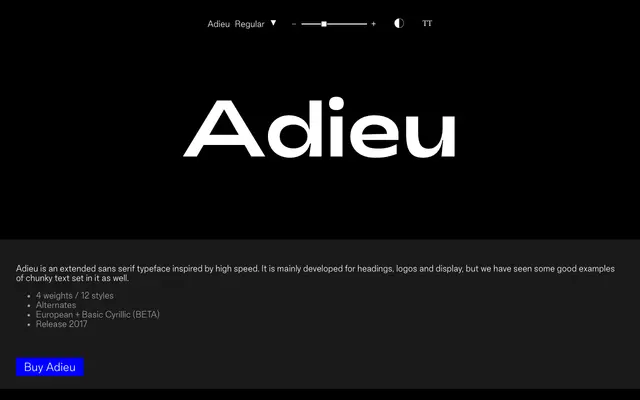
Adieu
Good Type Foundry · 2017
An extended display sans with speed-influenced proportions, released in four weights across twelve styles with European Latin and basic Cyrillic coverage.
Designed for headings, logos and display work, Adieu draws its formal energy from the aesthetics of high speed, resulting in wide, confident letterforms. Four weights run across twelve styles, with alternates included for additional flexibility. Cyrillic support is available in beta alongside a broad European Latin character set.
A wide, extended sans serif designed primarily for display and heading use, with proportions and forms inspired by high speed. Its extended width and four-weight range place it firmly in the display grotesque subcategory.